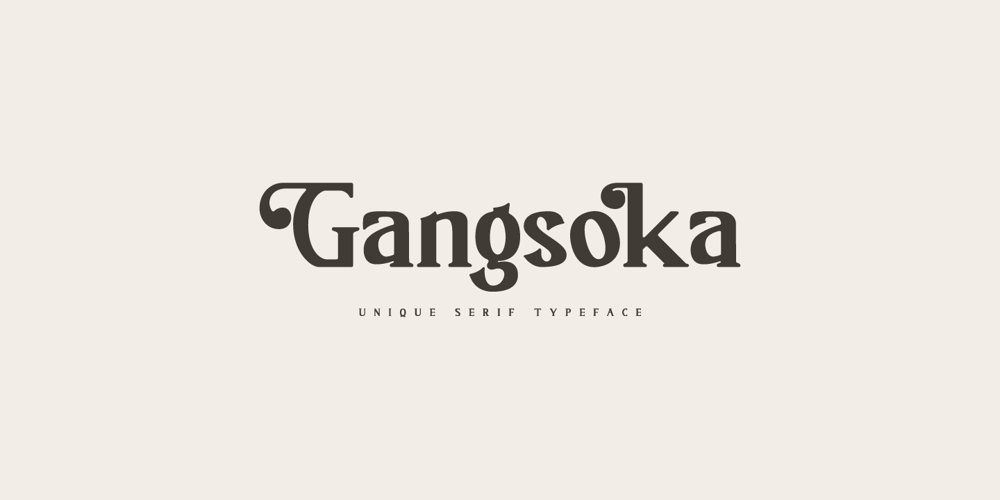
Gangsoka Font Family was designed by Prio Nurokhim Aji and published by Prioritype. Gangsoka contains 1 styles and family package options. A unique looking but classy and elegant looking font, that’s the conclusion of this font. It’s perfect for your design project and there is a choice of unique character alternatives. Can be applied to your designs such as logos, packaging, accessories, clothing, crafts, creative posts, branding, landing pages, UI / UX and others. See some of the previews above for reference.Features:-Uppercase-Lowercase-Numeral-Punctuation-Stylistic Alternate-MultilingualNote: To access the Opentype feature, it would be better if you use a program that supports it and is available with a glyph panel so you can see various alternative characters. Examples of programs such as Adobe Illustrator, Corel Draw or Inkscape.Thanks.